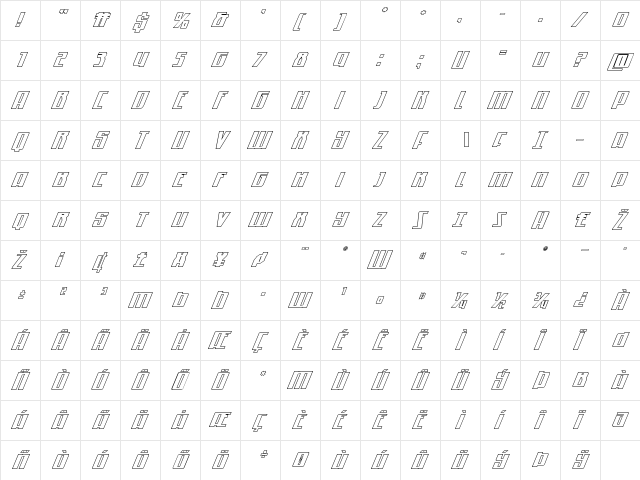
Quantum of Malice Outline Italic Italic
Design Context for Quantum of Malice Outline Italic Typeface
Quantum of Malice Outline Italic brings ornamental detail and strong personality to headlines and identities, where visual impact matters more than quiet functionality. The dynamic lean of this cut emphasises speed and emphasis in any layout.
Font Pairing: Pair with a clean neutral sans-serif for body copy to let Quantum of Malice Outline Italic's character lead without overwhelming the composition.
Pro Tip: Use Quantum of Malice Outline Italic exclusively at display sizes — it was designed to be seen, not read at length. Let a neutral companion handle body copy.